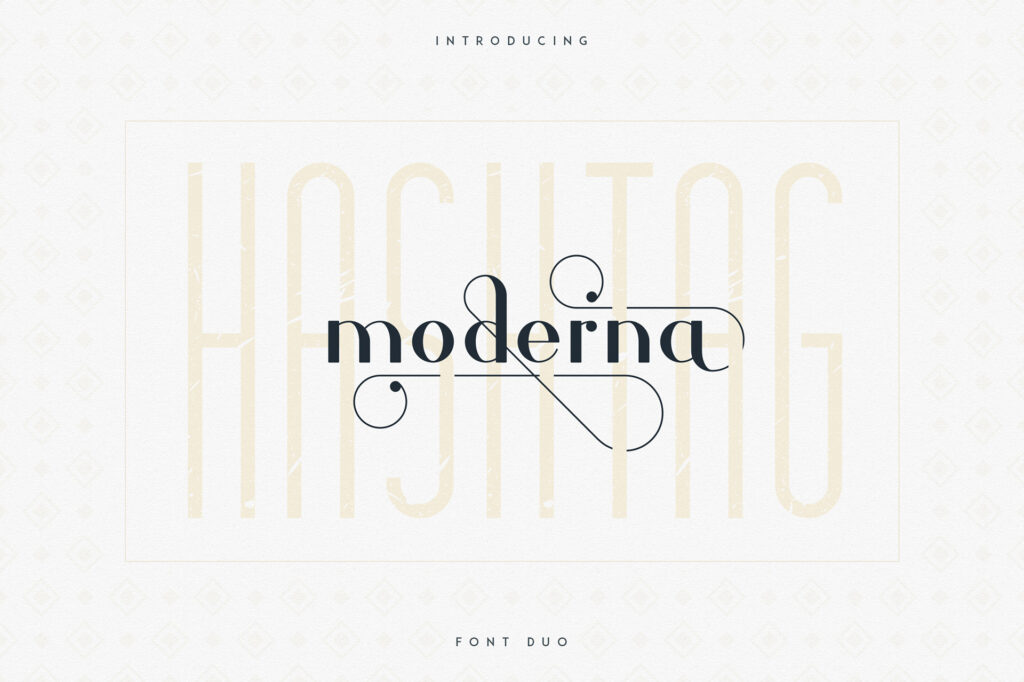
Hashtag Moderna is elegant, clean font duo with total of 4 font styles, loads of alternatives, ligatures, patterns and multilingual support. It’s a very versatile font that works great in large and small sizes.